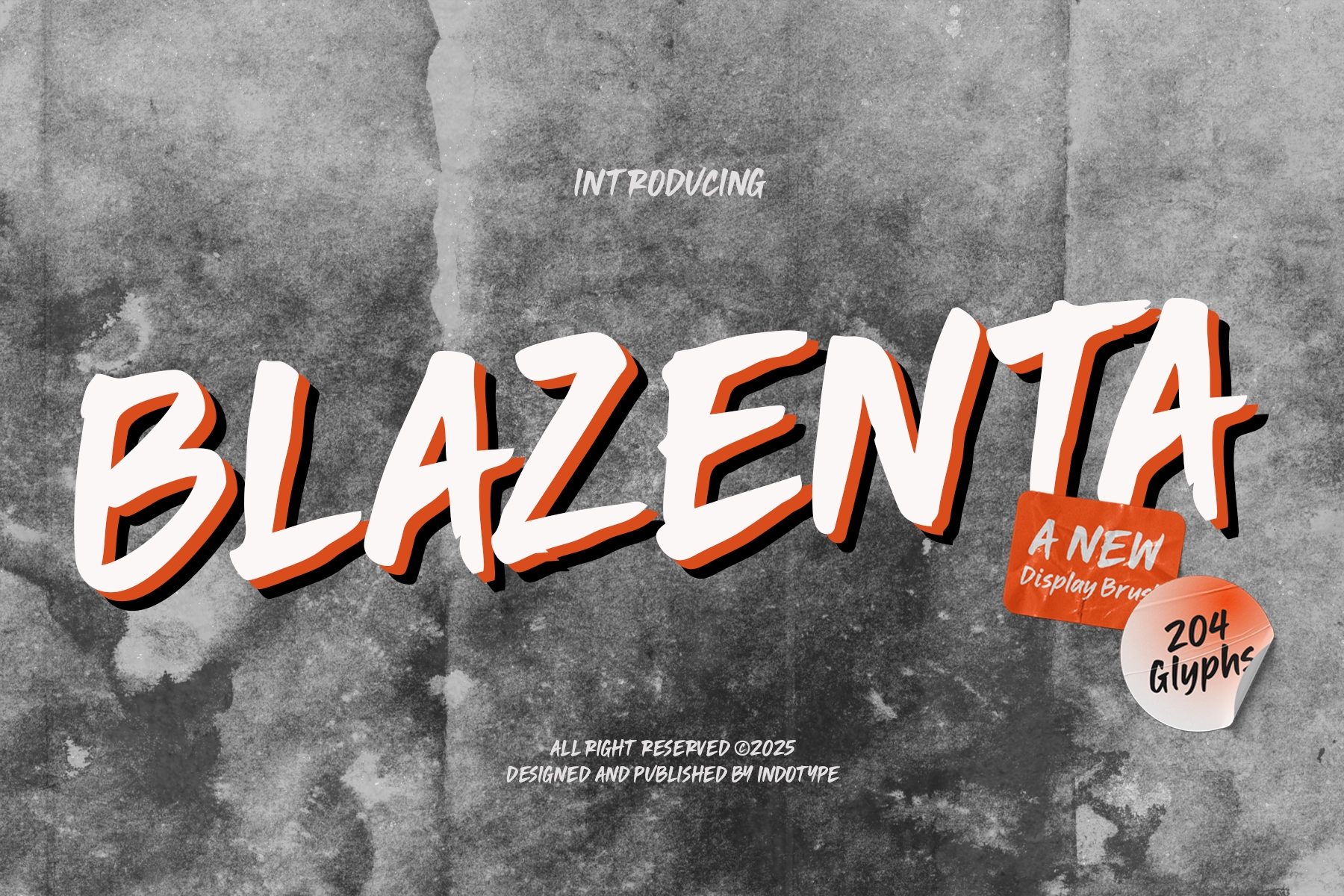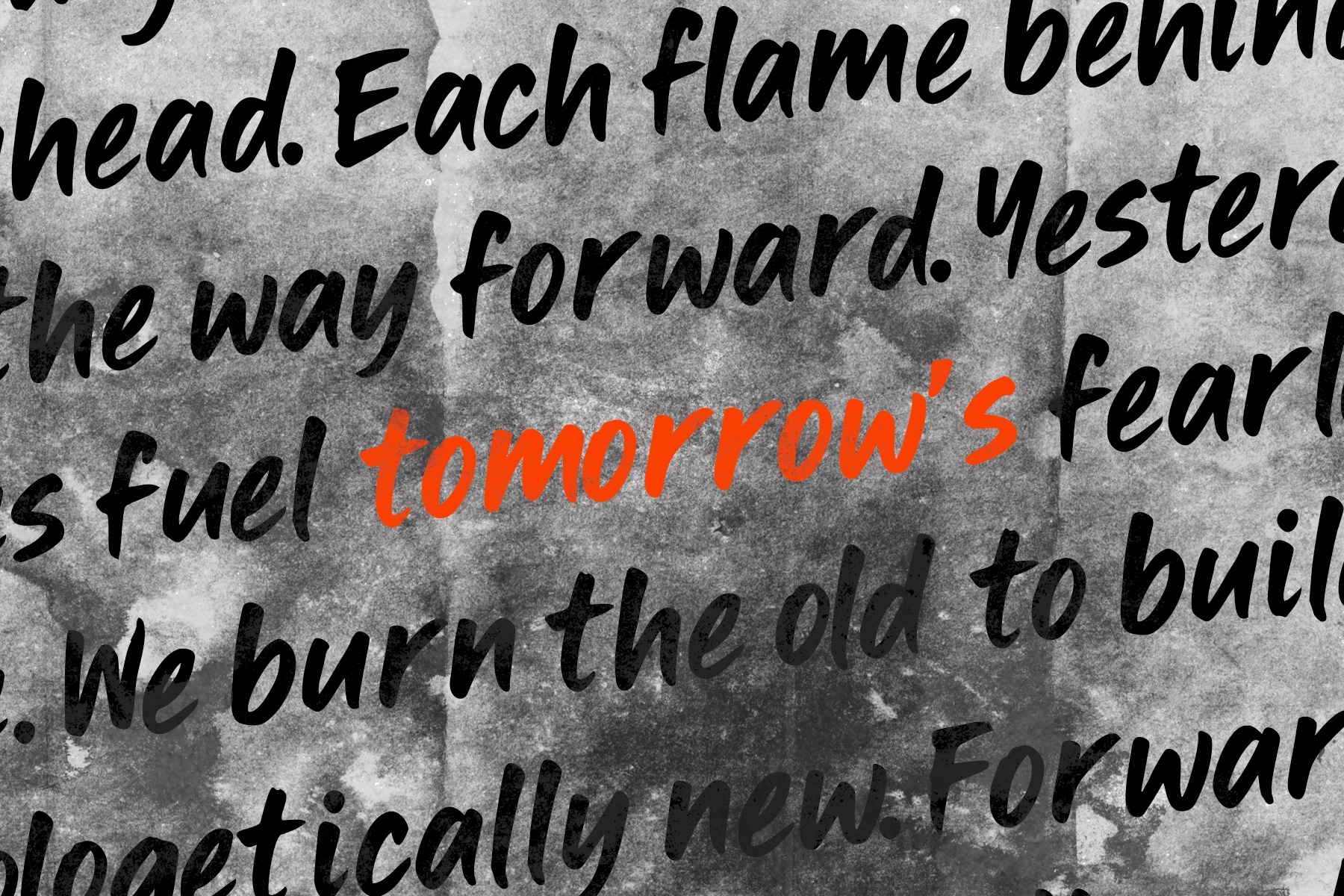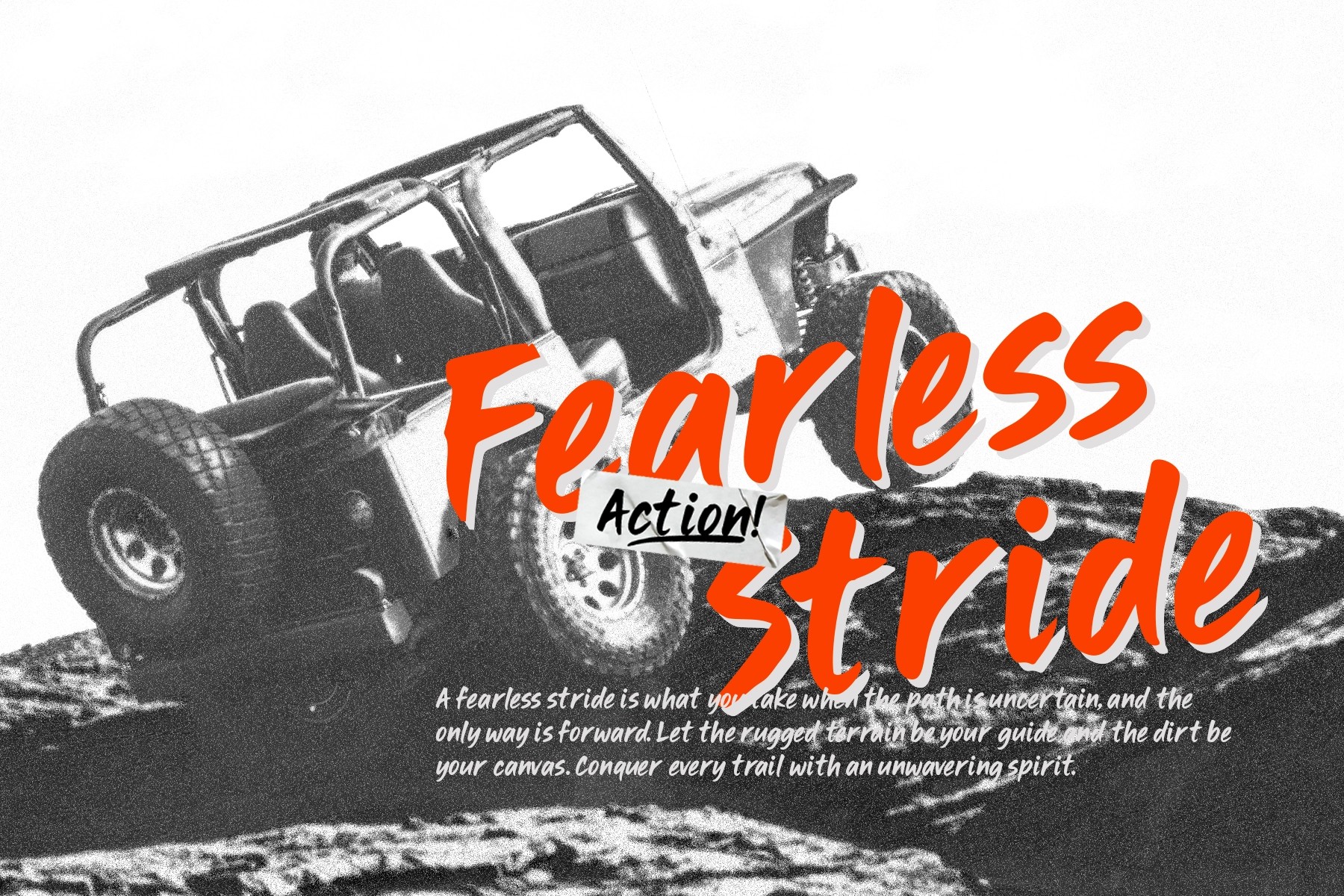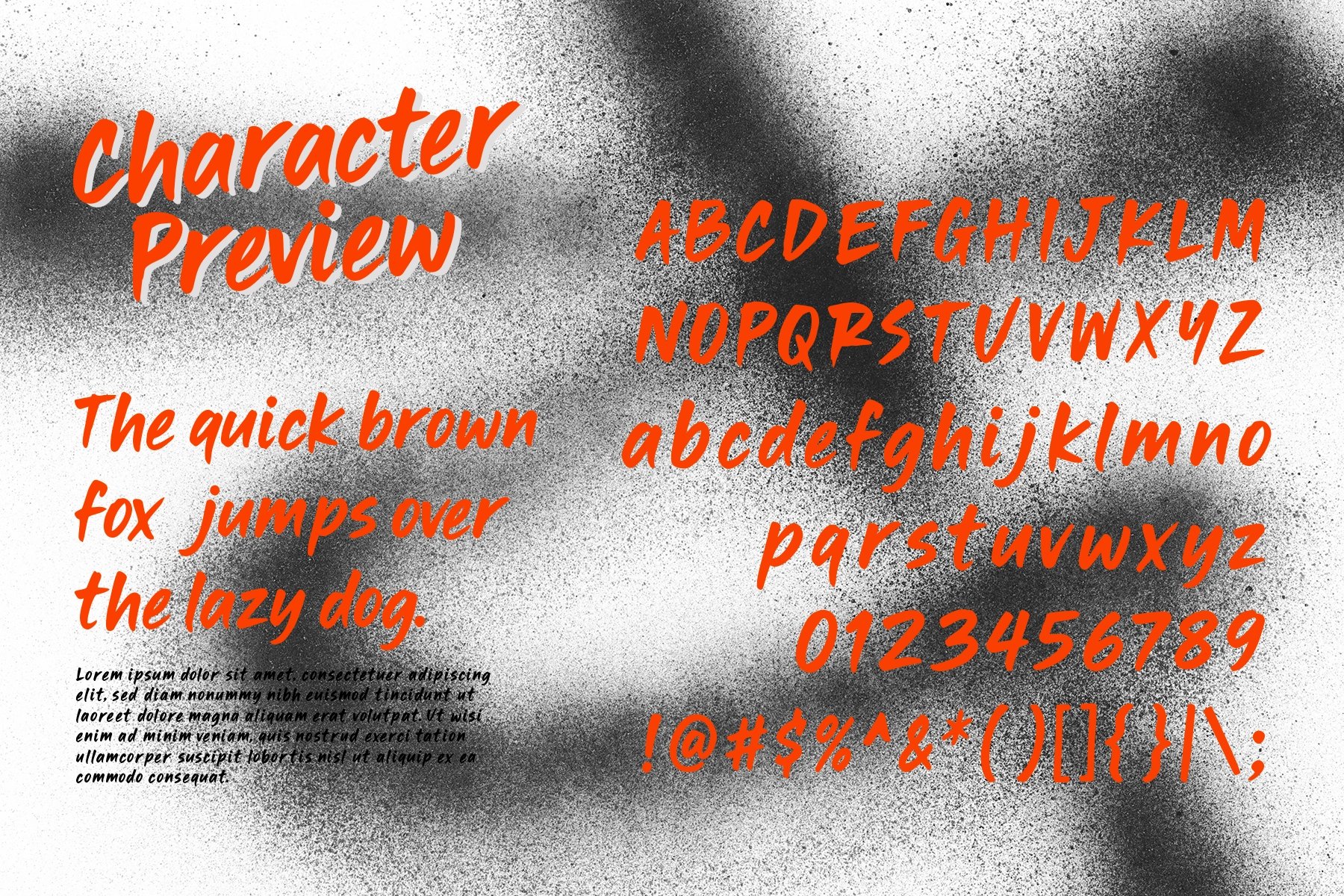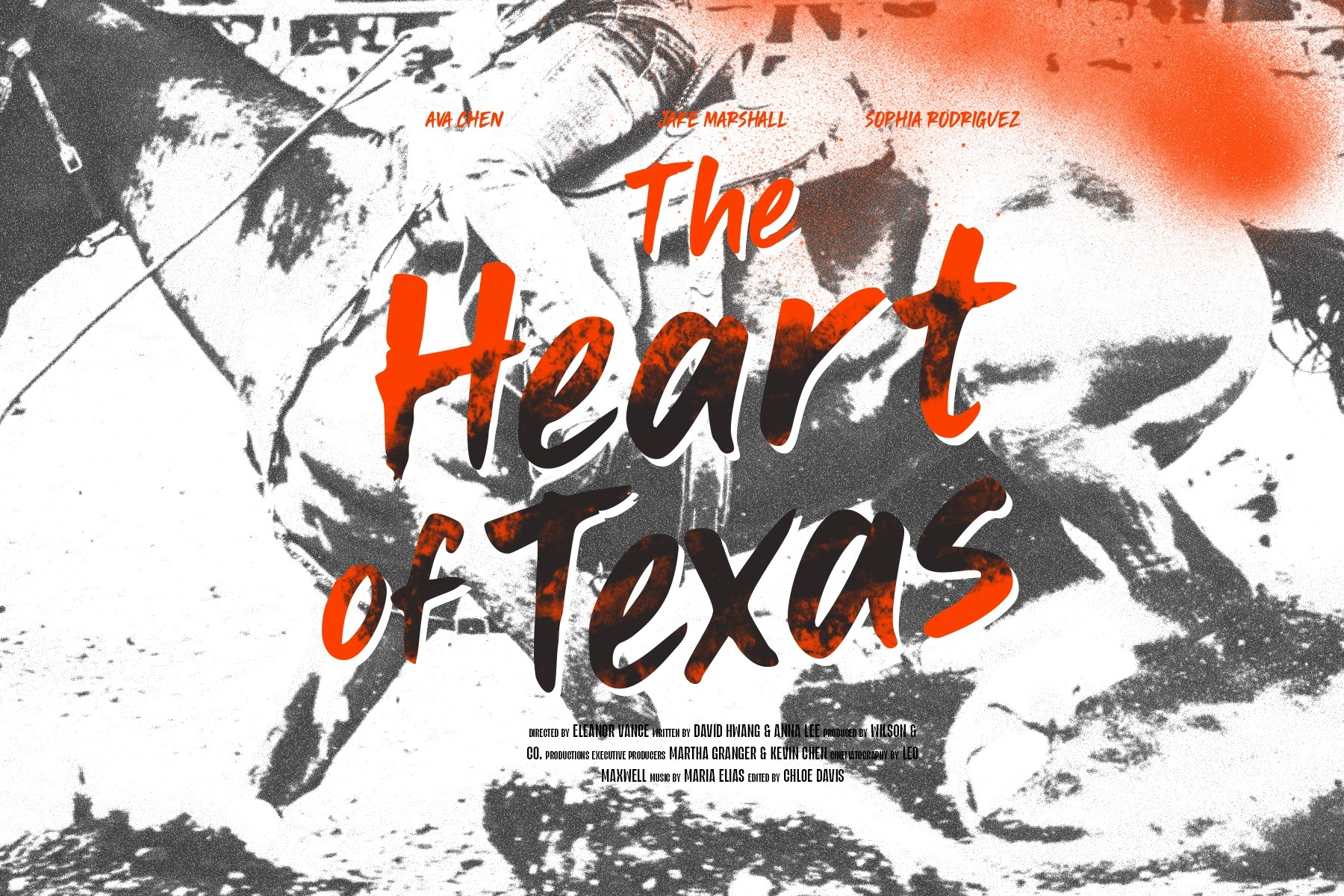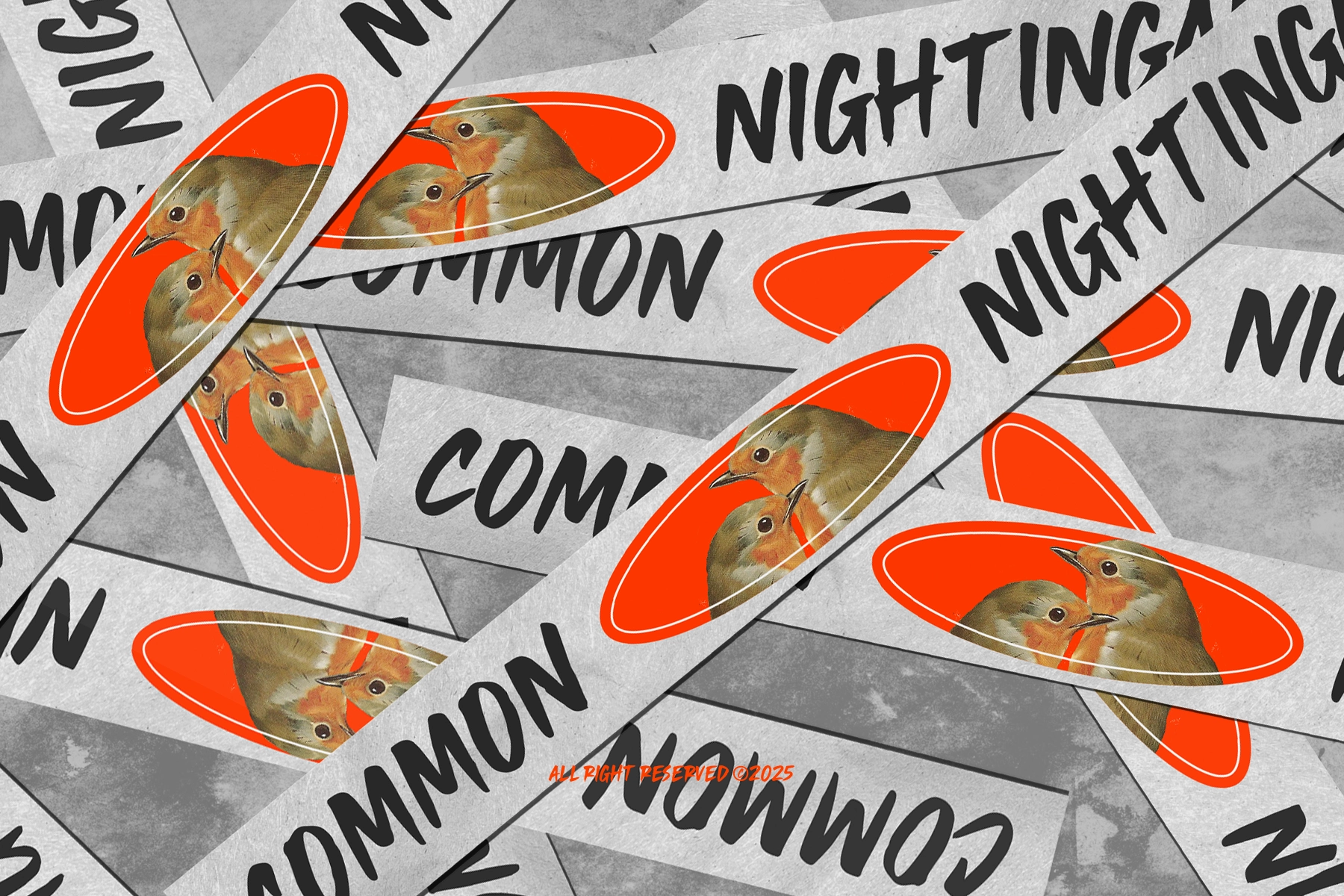
Blazenta - Display Brush Font
This brush typeface has fast hand-painted strokes, rough edges, and a loud cinematic attitude. Its slanted forms, sharp terminals, and heavy contrast give headlines a gritty, expressive character made for posters, cover art, and branding with a pulse.
Blazenta works for movie titles, album covers, band merch, sports graphics, streetwear prints, skate shop branding, festival posters, packaging, YouTube thumbnails, social media campaigns, game titles, and more. It has the kind of raw lettering that looks like it was written under pressure — probably with coffee nearby and a deadline behaving badly.